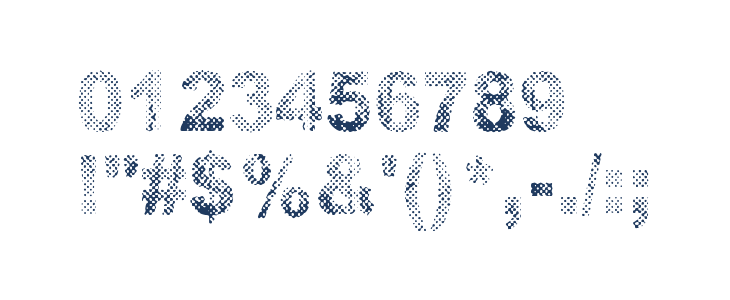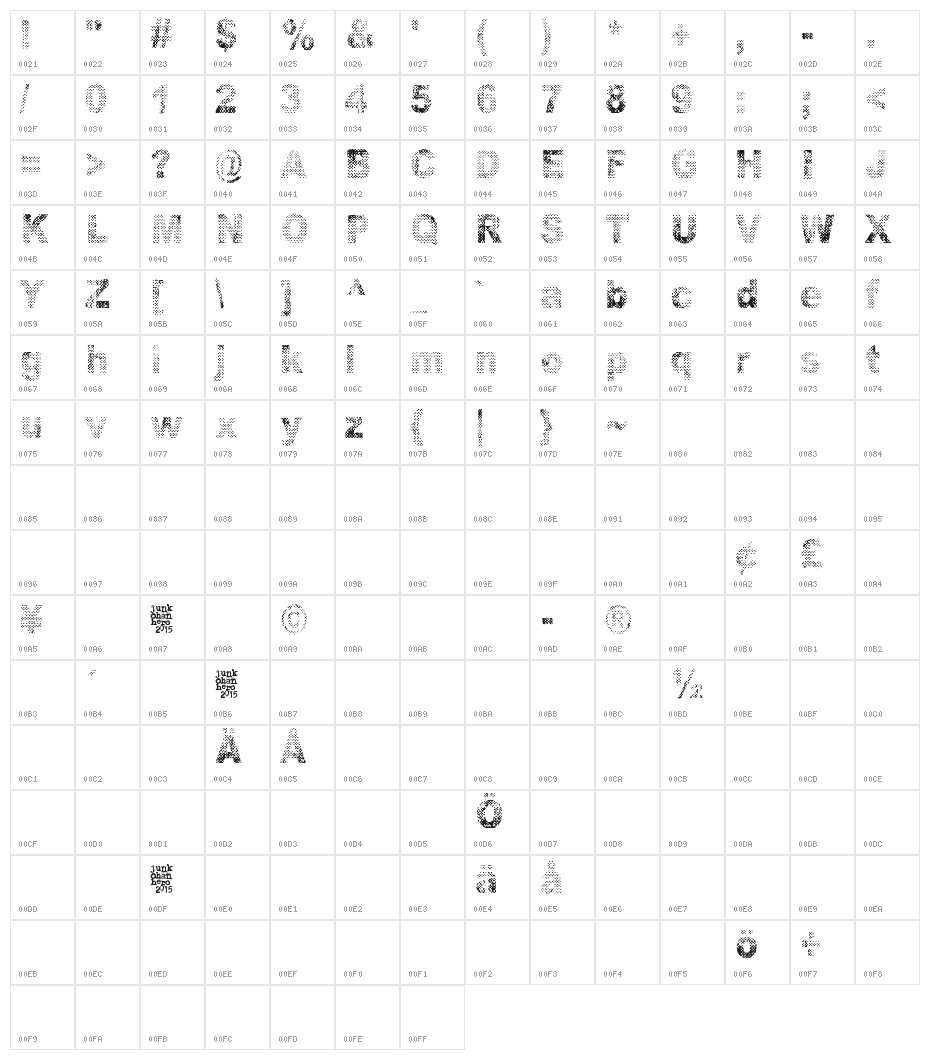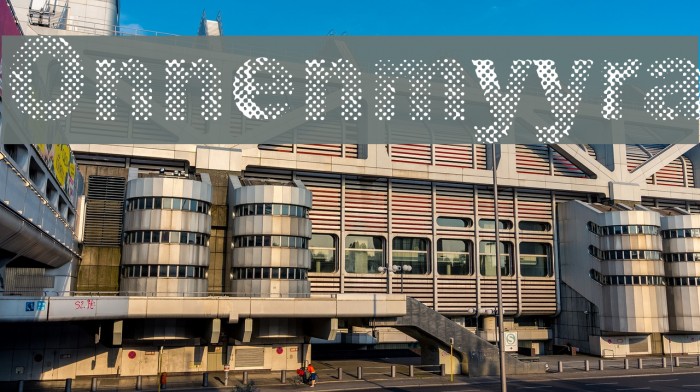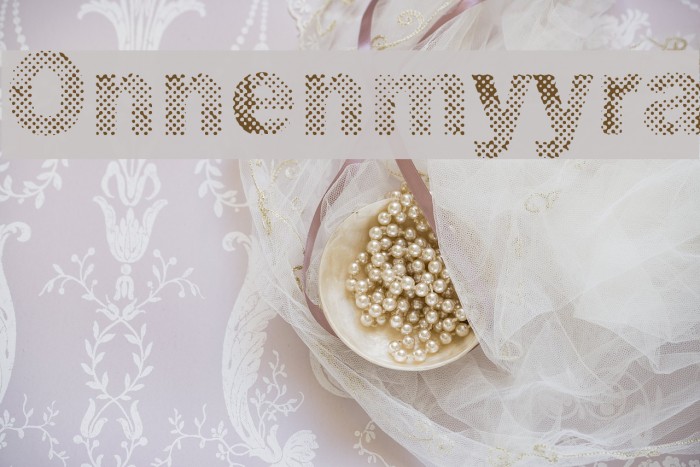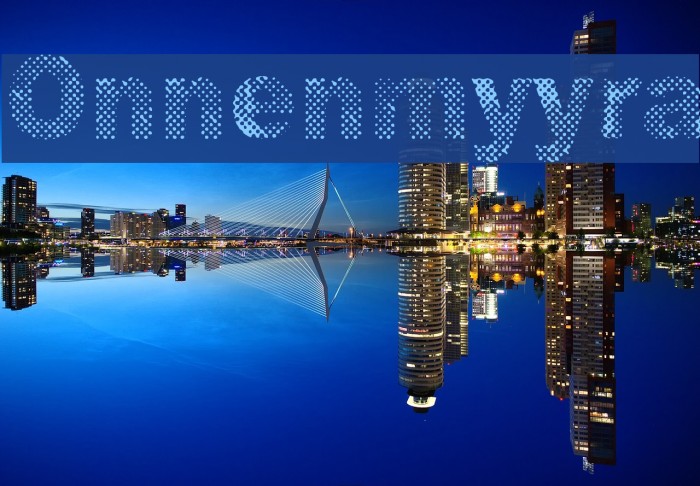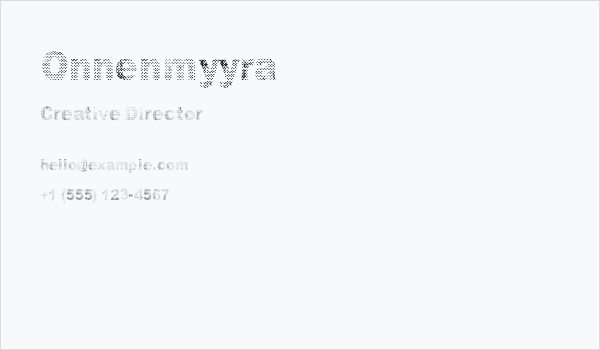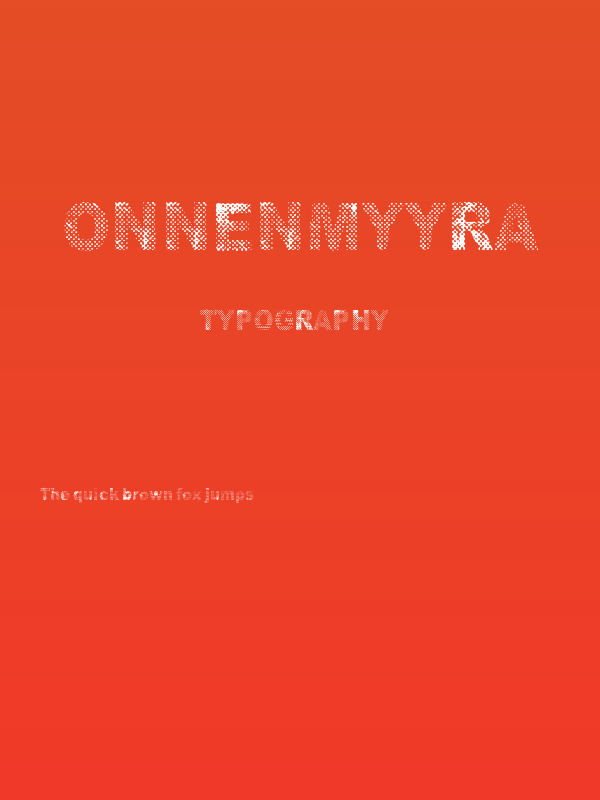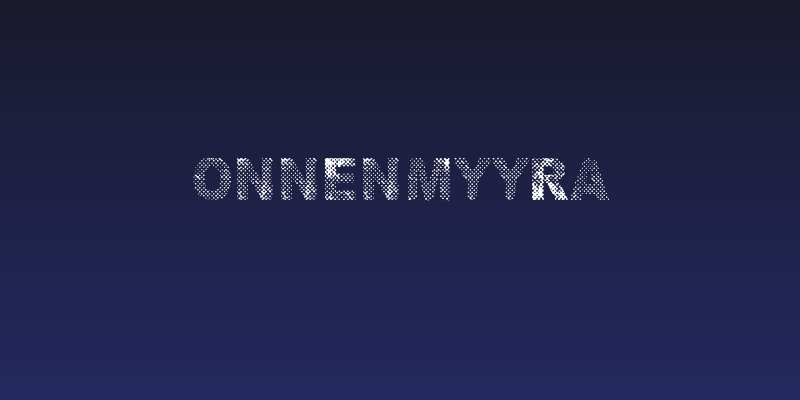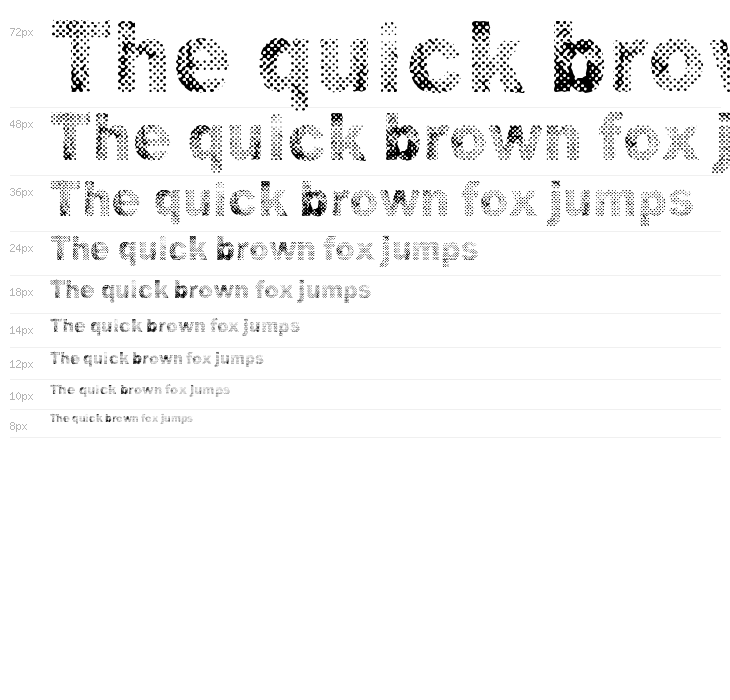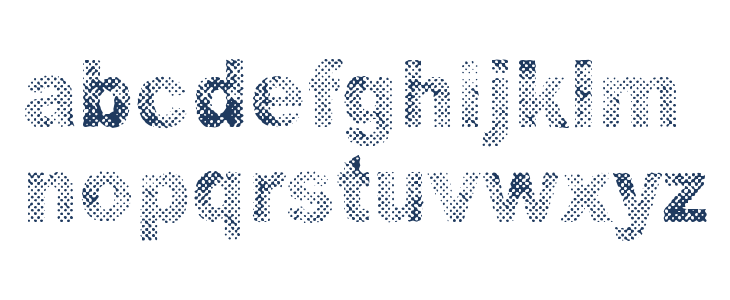
Onnenmyyra Font
Onnenmyyra Description
This font features a unique halftone pattern, giving it a textured and dynamic appearance. The characters are bold and display a playful yet structured design, with each letter filled with a series of dots that create a gradient effect. This style adds depth and visual interest, making it stand out in any design. The uppercase and lowercase letters maintain a consistent style, while the numerals and special characters complement the overall aesthetic. The font's distinctive look is both modern and retro, suitable for creative and eye-catching projects.
| Overall Style | Modern, Retro |
| Proposed Projects | Ideal for posters, album covers, branding, and any project that requires a bold and artistic touch. |